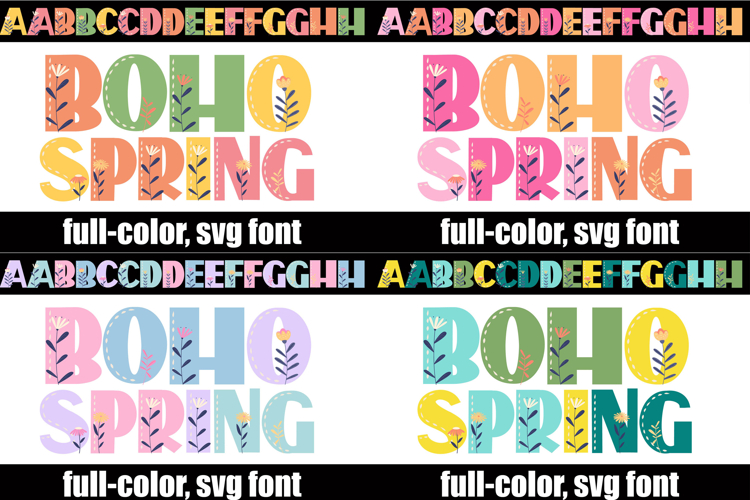
Boho Spring Color Font
This full-color, spring-colored font features a sans serif with blooms done in 4 different color palettes. There is an alt case of additional colors of each letter that you can access through your system's character map.